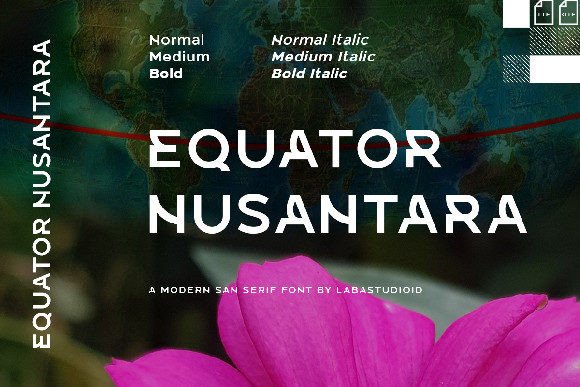
Step into the world of Equator Nusantara Font, a modern sans serif masterpiece that exudes elegance and distinction. Crafted by the creative minds at Labastudioid, this font breathes life into your designs, enhancing them with individuality and charm. Experience the transformative power of Equator Nusantara, and prepare to be mesmerized by its captivating allure.
Unleash your creativity and embrace the limitless possibilities presented by Equator Nusantara. Let its captivating curves and striking indentations elevate your projects to new heights of sophistication. Whether you're designing a modern CV, crafting logos that command attention, or creating marketing materials that leave a lasting impression, Equator Nusantara is your perfect partner.
With Equator Nusantara, you hold the key to unlocking a world of visual brilliance. Its unique design elements, including the distinctive indentations on certain letters, add a touch of intrigue and memorability to your designs. Prepare to stand out from the crowd, as Equator Nusantara transforms your creations into masterpieces that captivate and inspire.
Experience the versatility of Equator Nusantara, a font that effortlessly adapts to a wide range of design styles and applications. From the sleek and minimalist to the bold and expressive, Equator Nusantara seamlessly integrates into your vision, enhancing it with its timeless appeal. Whether you're designing websites, social media graphics, or eye-catching presentations, Equator Nusantara delivers stunning results every time.
Indulge in the beauty and innovation of Equator Nusantara, a font that ignites your passion for design. Its modern aesthetic and exceptional legibility make it the perfect choice for creating CVs that demand attention. Elevate your professional image and make a lasting impression with Equator Nusantara, the font that sets you apart from the rest.